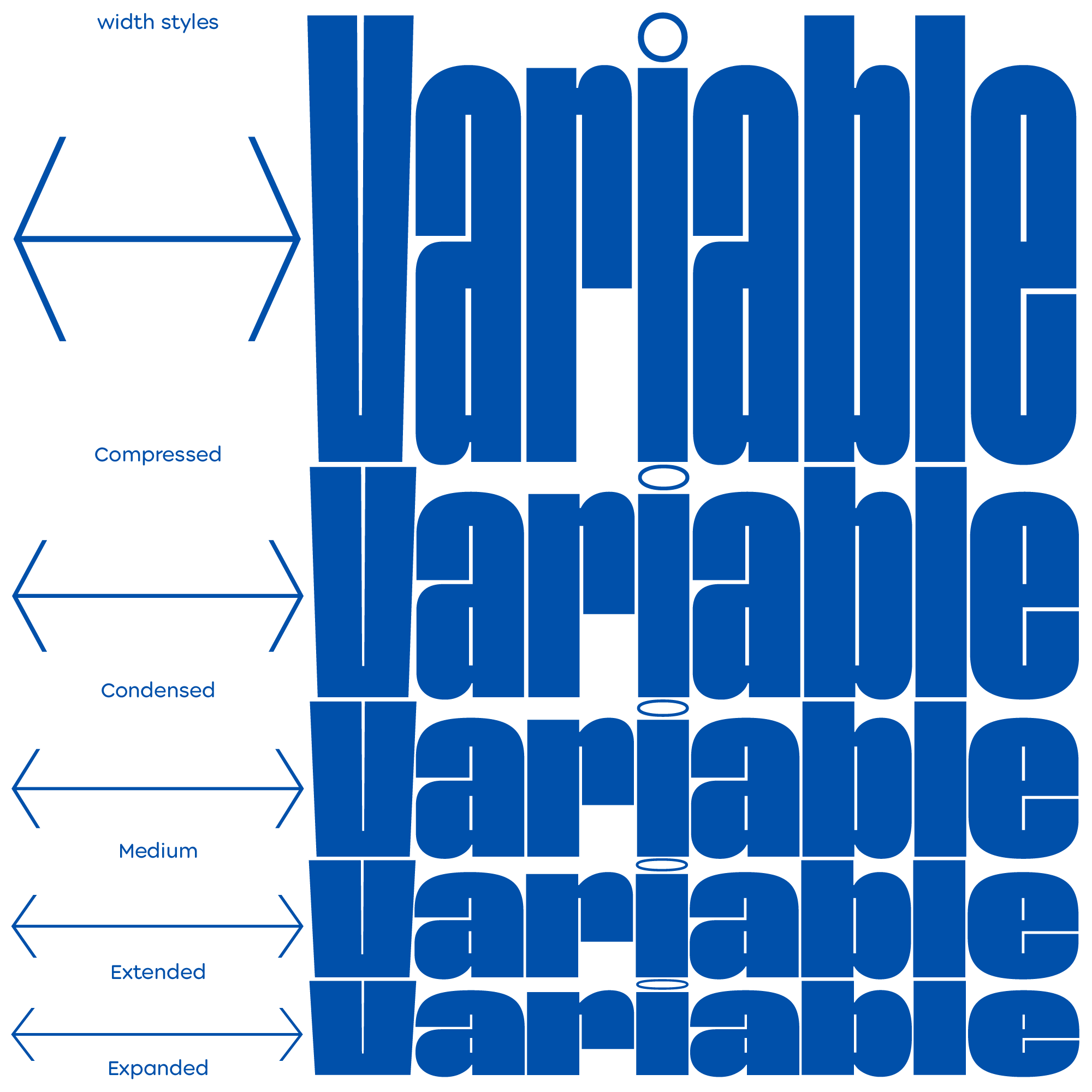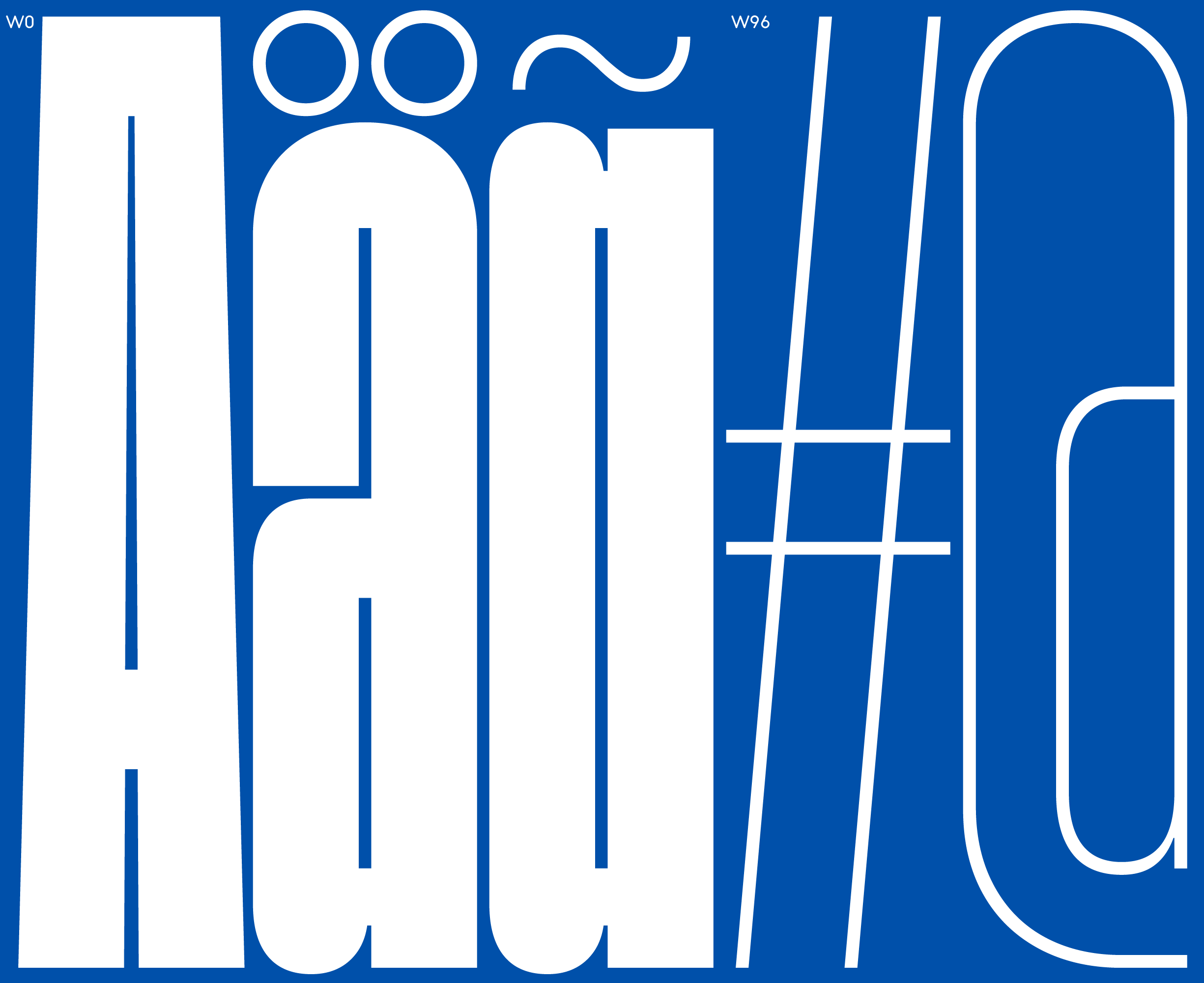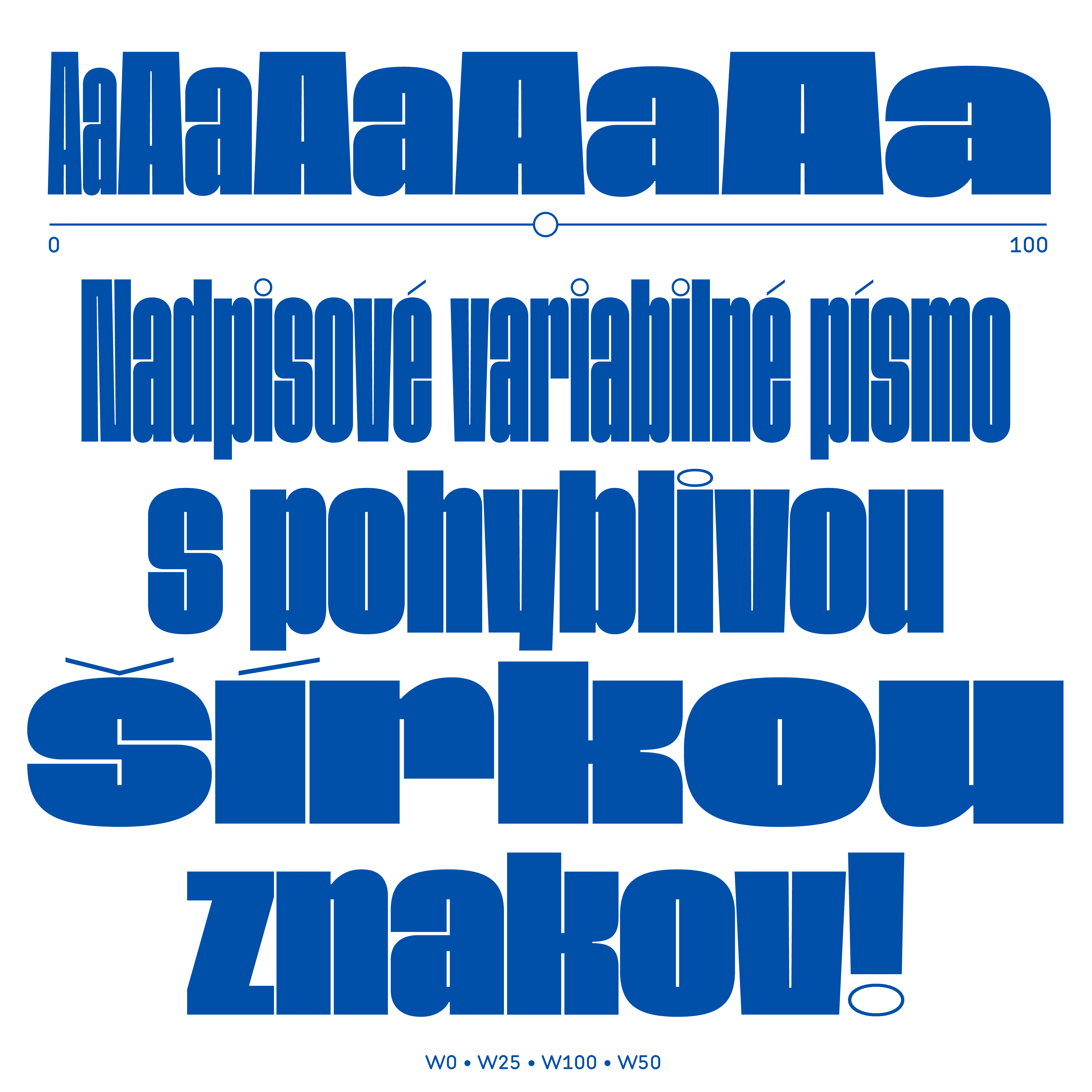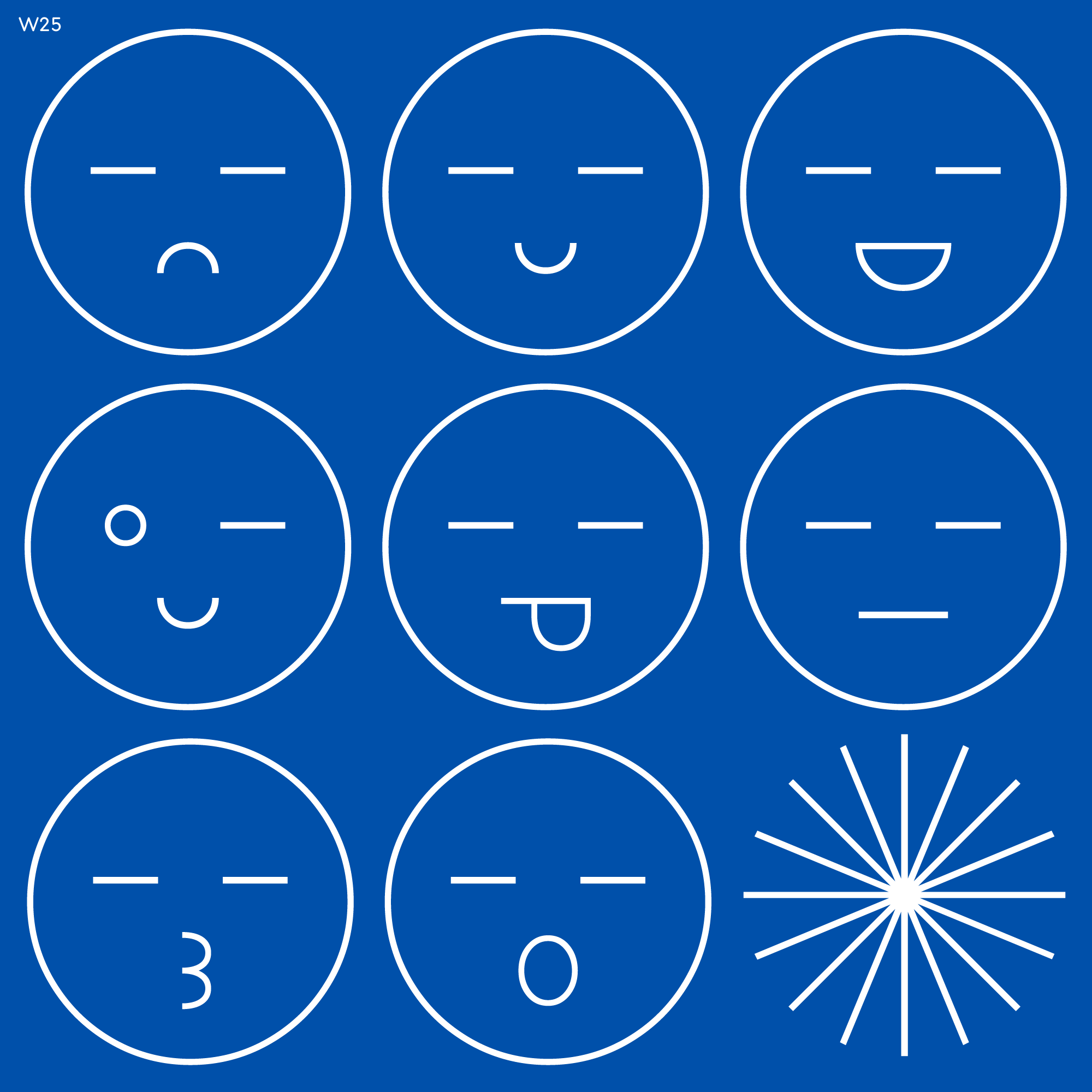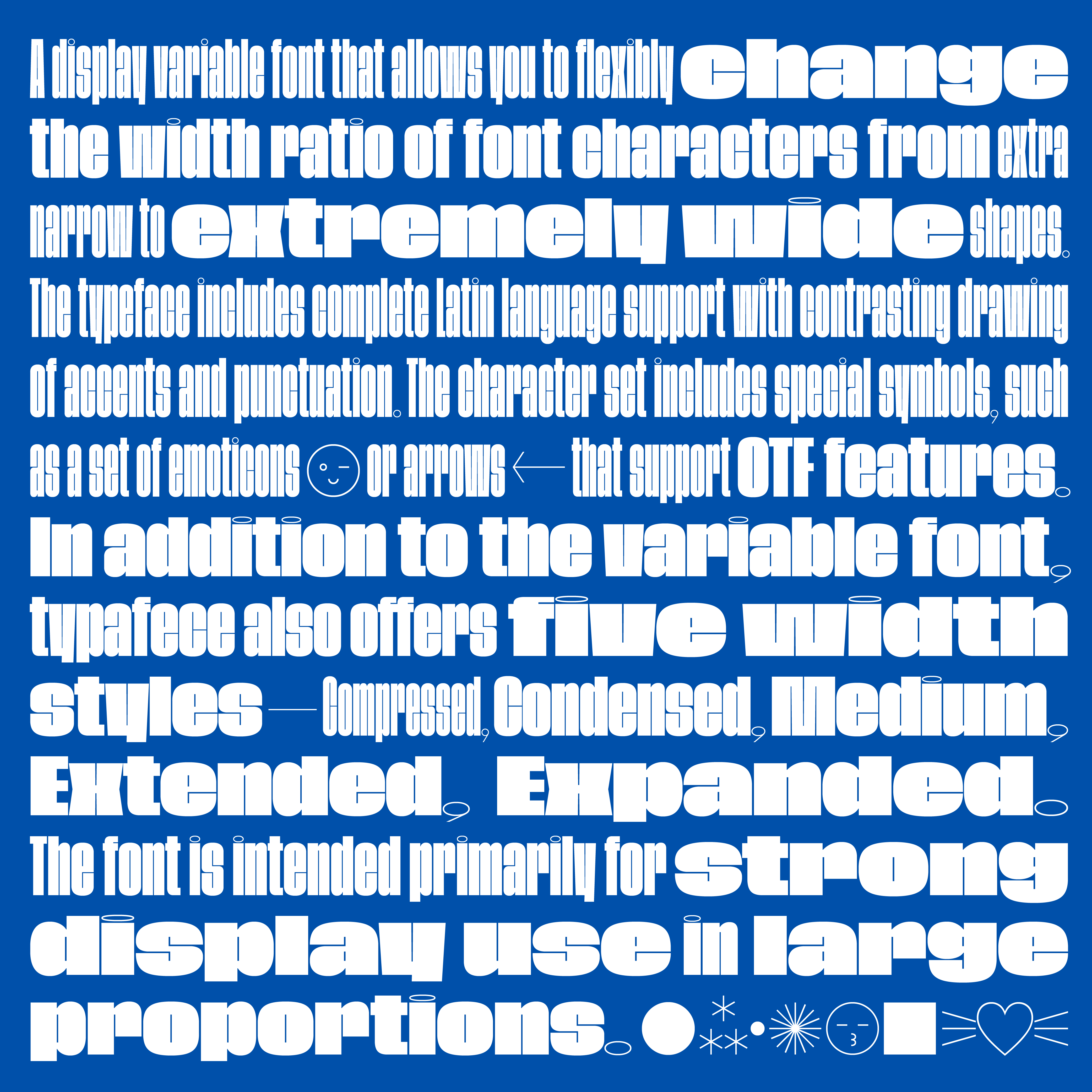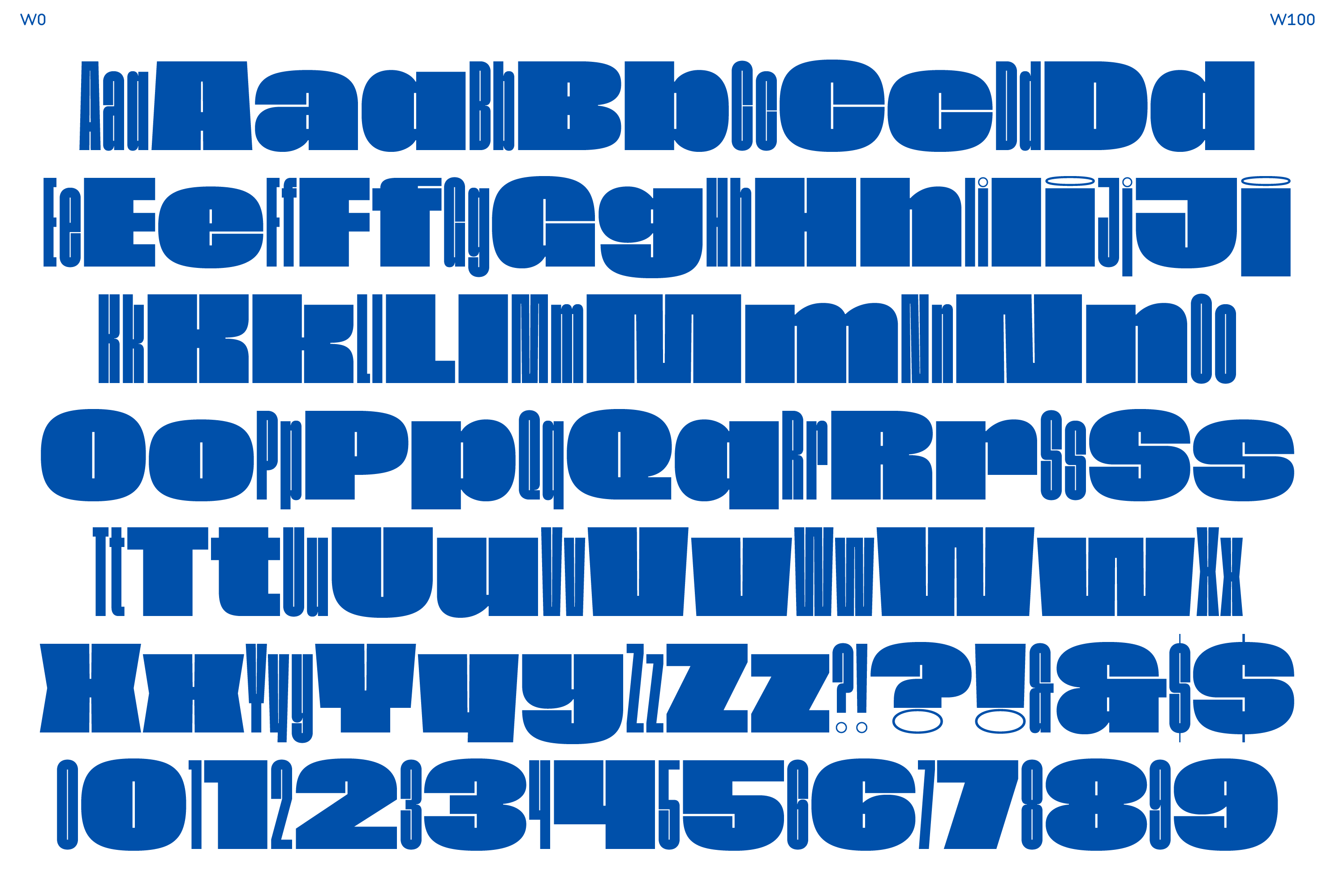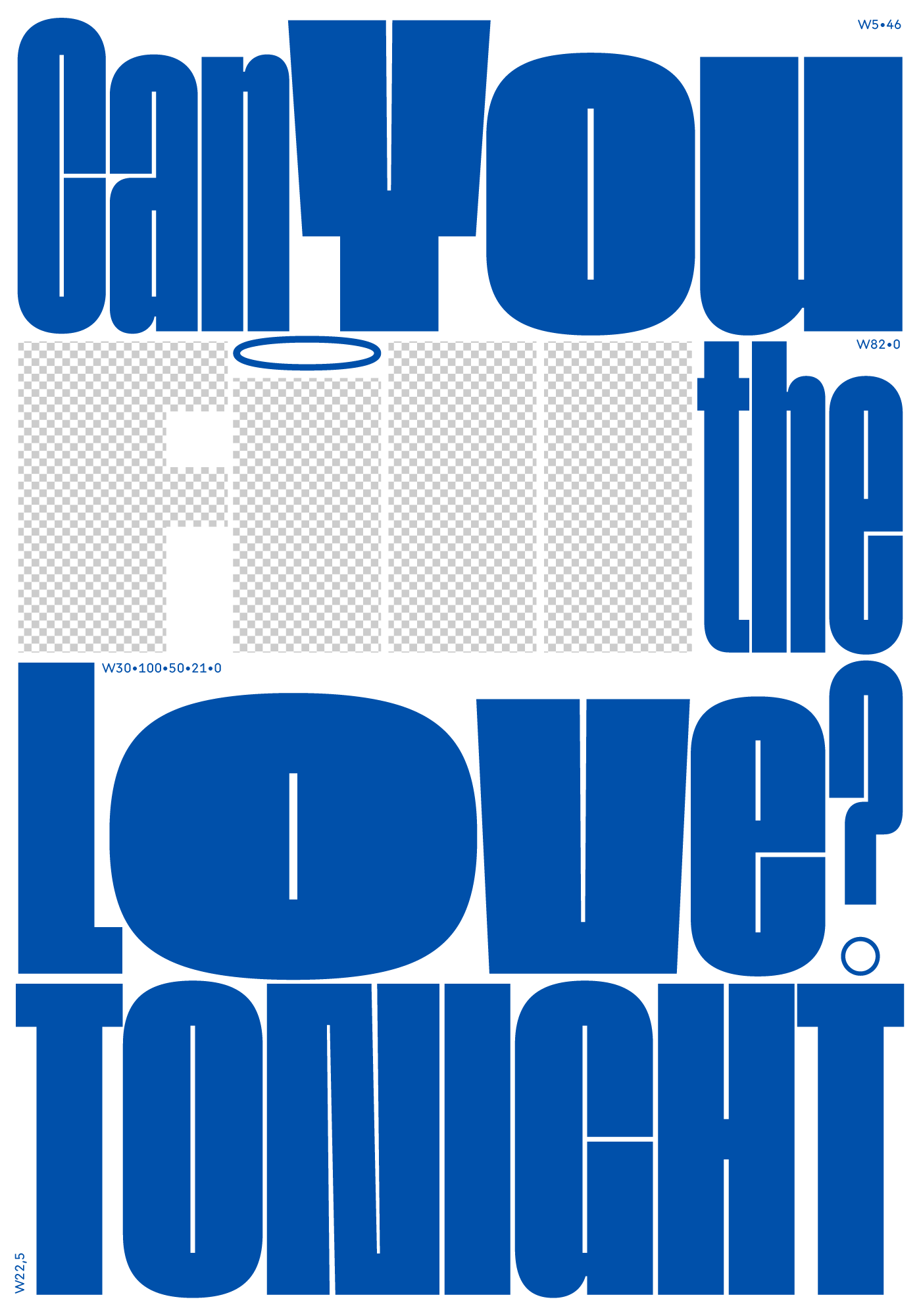
Filler
Filler is a display variable font that allows you to flexibly change the width ratio of font characters from extra narrow to extremely wide shapes. The typeface includes complete Latin language support with contrasting drawing of accents and punctuation. The character set includes special symbols, such as a set of emoticons or arrows that support OpenType features. In addition to the variable font, Filler also offers five width styles — Compressed, Condensed, Medium, Extended, Expanded. The font is intended primarily for strong display use in large proportions.